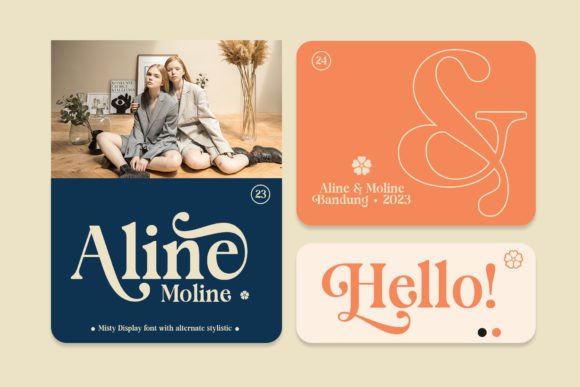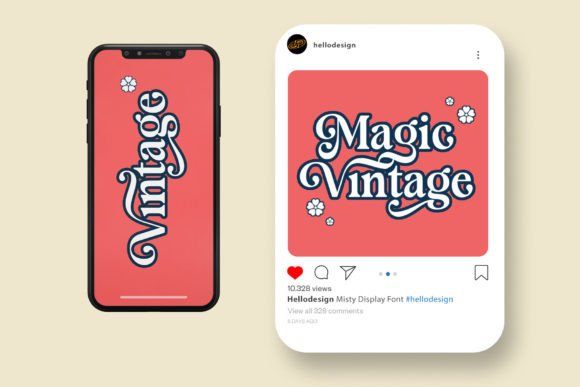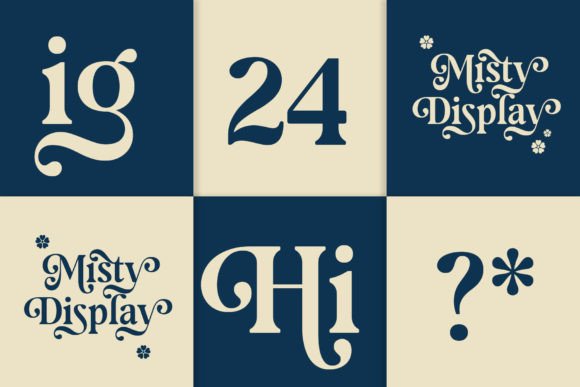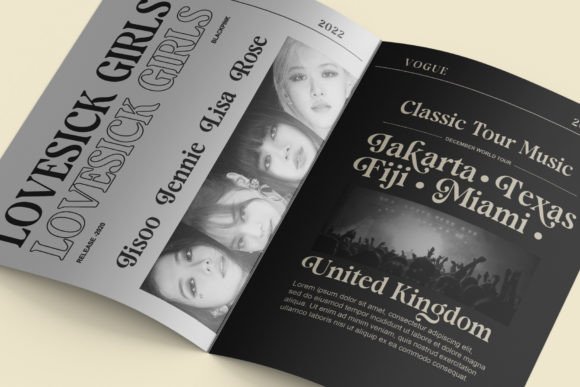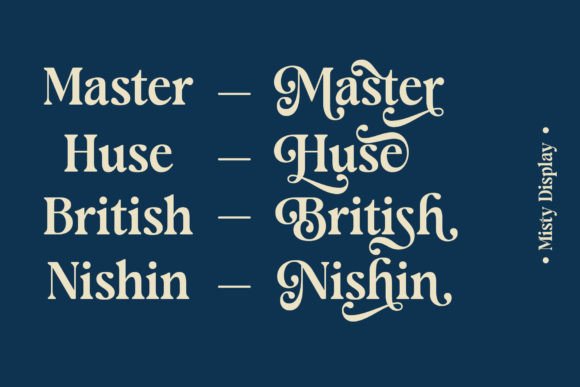
Introduction to Misty Display Font
Misty Display is a stylish and timeless font that brings a touch of nostalgia to any design.
With its clean and elegant serifs, Nostalgic Serif captures the essence of classic typography while maintaining a modern look Its versatility makes it perfect for branding, advertising, and editorial designs that require a touch of sophistication and charm.
Key Features of Misty Display Font
Why Choose Misty Display Font?
Misty Display Font offers exceptional quality and versatility, making it a valuable addition to your design toolkit. Whether you’re creating for personal projects or commercial use, Misty Display Font delivers professional results.